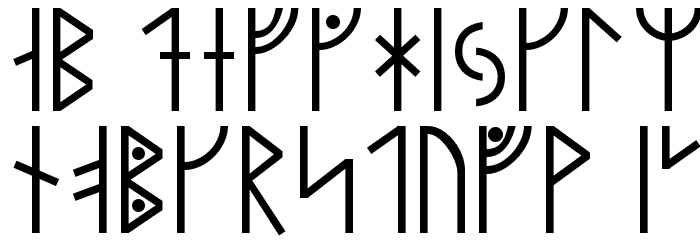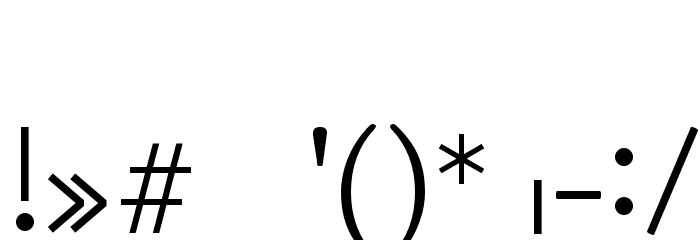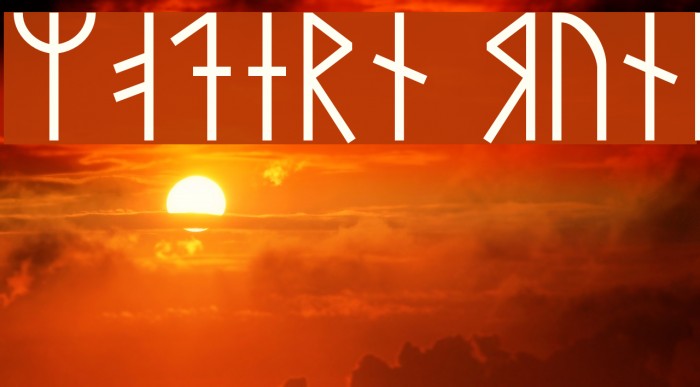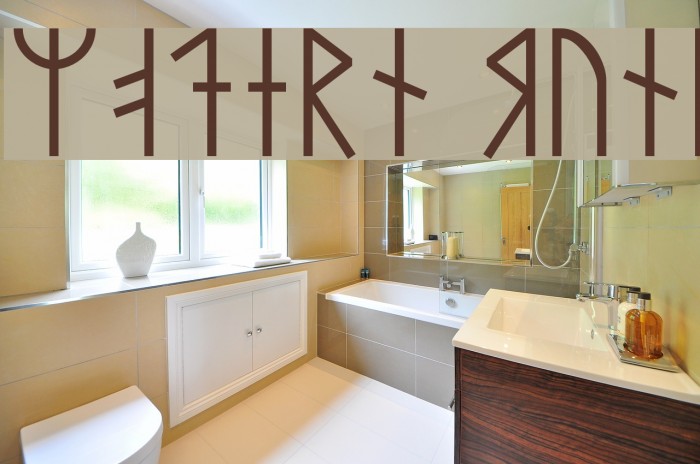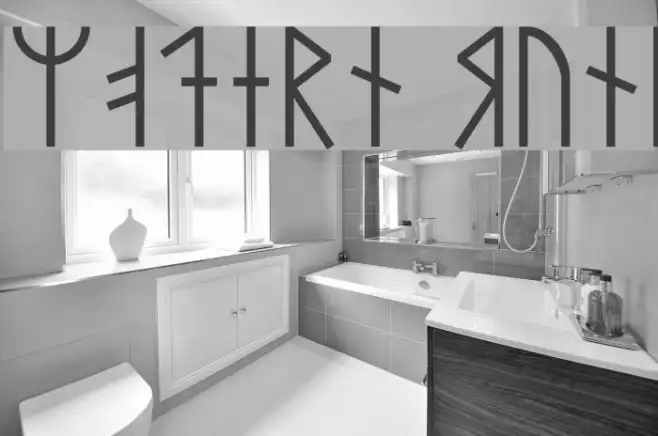
Modern Runic Font
This font features a modern interpretation of ancient runic symbols, combining geometric shapes with a minimalist aesthetic. The characters are composed of straight lines and sharp angles, giving them a distinct and edgy appearance. The use of circles and dots within the letters adds a unique decorative element, enhancing the overall visual interest. The font maintains a consistent stroke width, contributing to a clean and uniform look. Its unconventional style makes it stand out, making it suitable for projects that aim to convey a sense of mystery or historical significance.
A modern, geometric font inspired by ancient runic symbols with a minimalist design.
- Proposed Projects: Ideal for fantasy-themed designs, video game interfaces, book covers, and branding for products with a historical or mystical theme.
- Use Case: Logos, Headlines, Themed Events